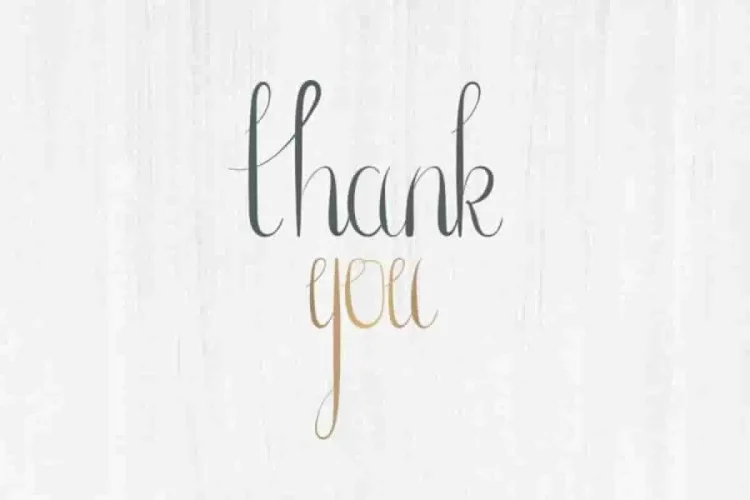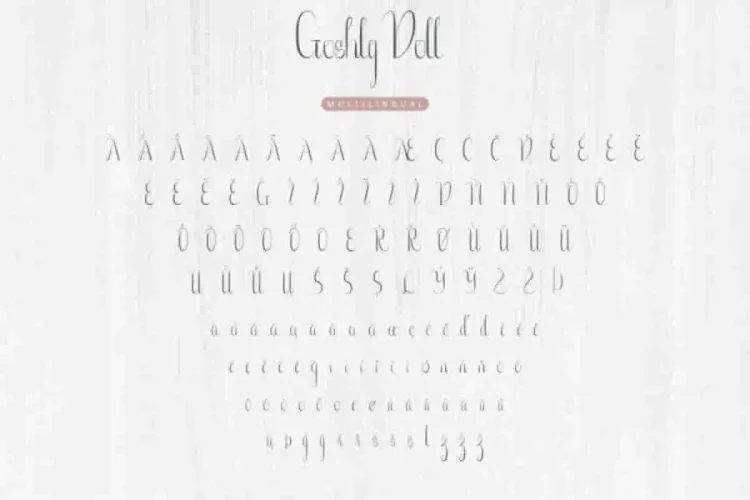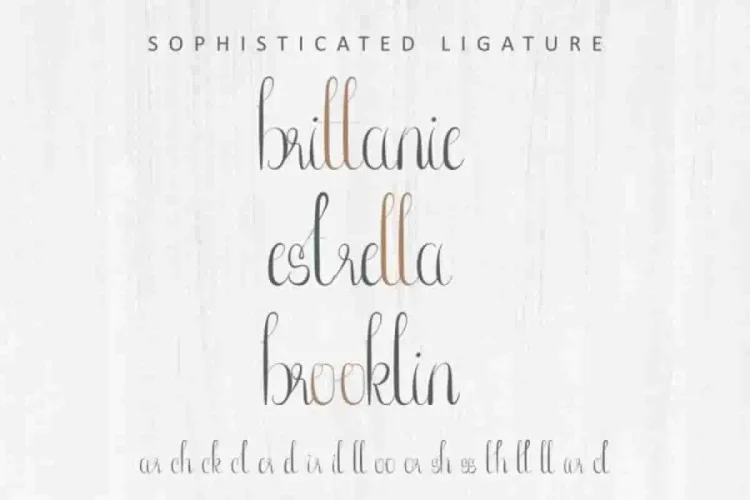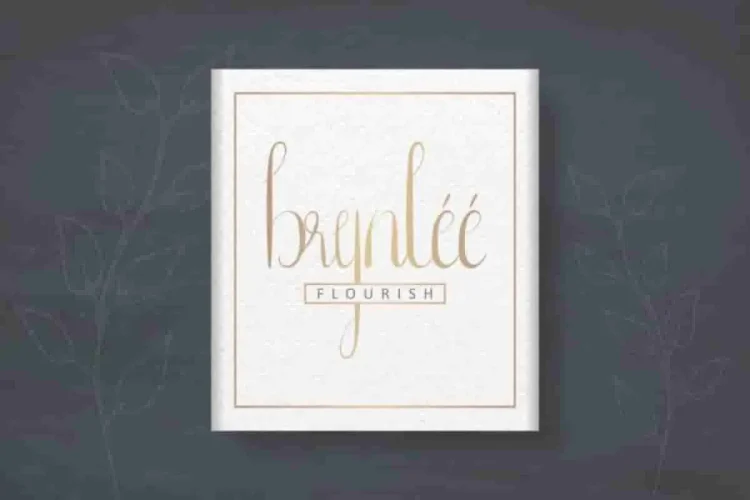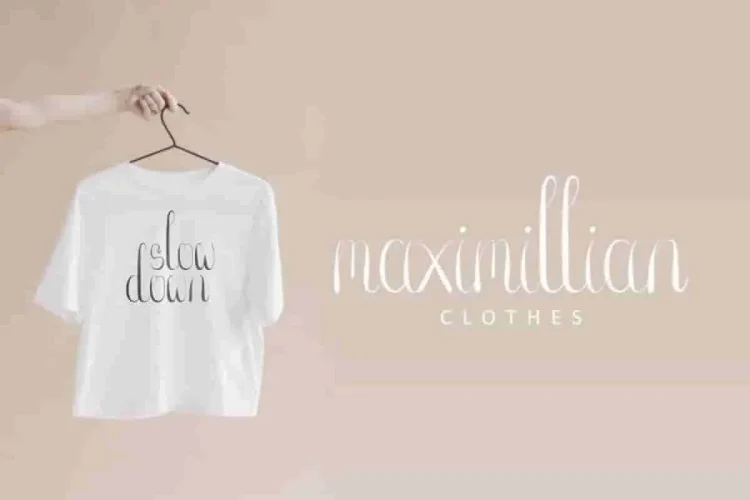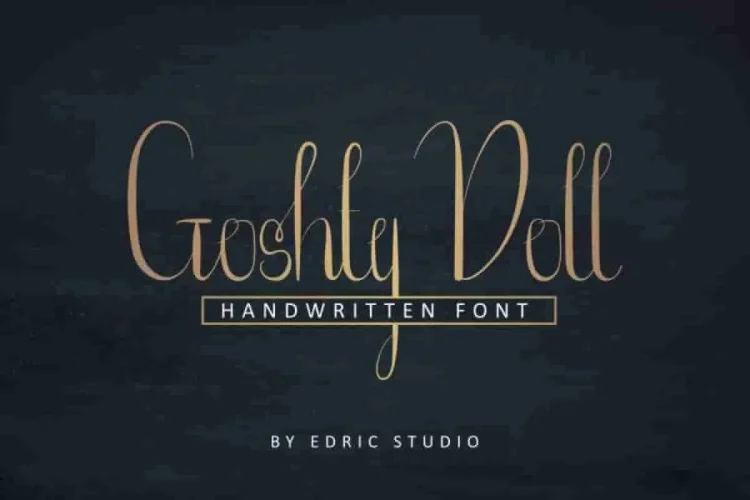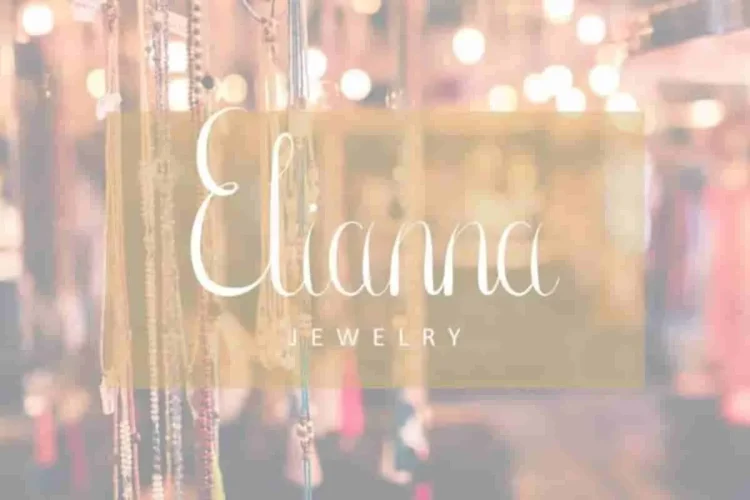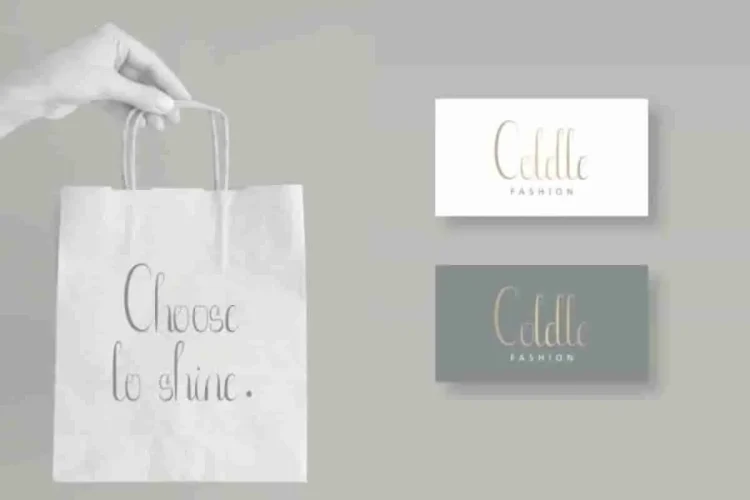
Goshty Doll Calligraphy Font
It is us again : EDRIC Studio. This time, we proudly introduce the newest font Goshty Doll Calligraphy Font.
To begin with, Goshty Doll Calligraphy Font was made in 2020 from Bandung and Garut, Indonesia. By our artists : Widiyanti and Sarah Suci. :)
In fact, this is font has a great handwriting calligraphy style with a natural effect. And surely, Goshty Doll Calligraphy Font comes with complete international language support, making it suitable for global audiences.
You can explore any of your projects with the exclusive glyphs of Goshty Doll Calligraphy Font. Specifically, Goshty Doll Calligraphy Font works beautifully for a wide range of projects (need extended license), including : logotype, stationery, business card, signage, flyer, brochure etc. Furthermore, this font matchs all categories professionals like law firm, real estate, wedding, advertisement, florist, makeup artist, musician, etc